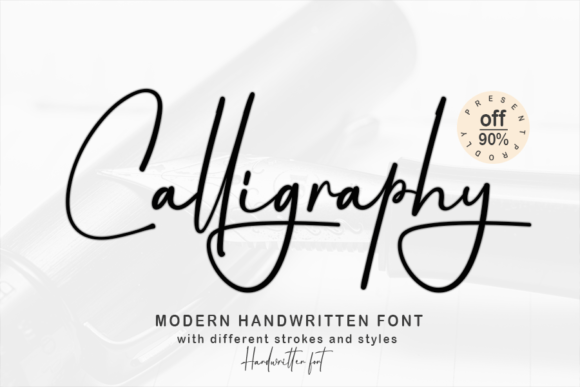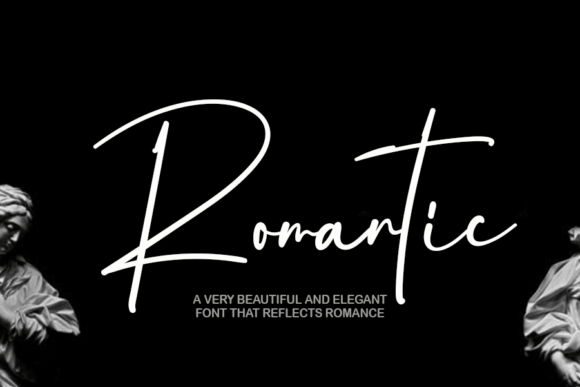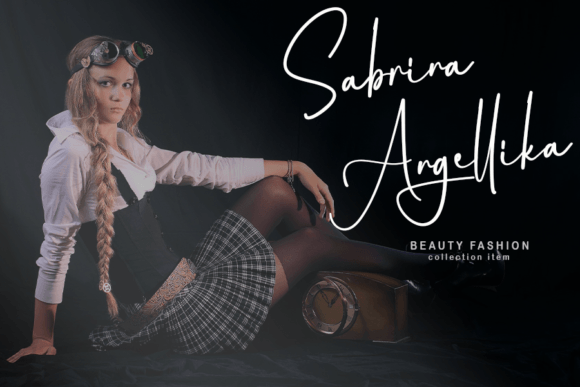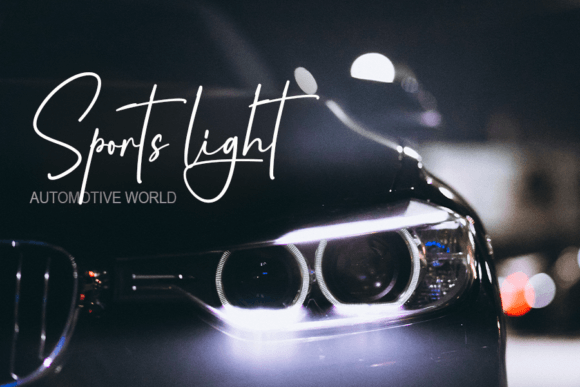
About the Calligraphy Font
Experience the unique personality of Calligraphy Font, a font designed for impact. Calligraphy is a stylish and elegant signature script font. It is perfect for product packaging, branding project, magazines, social media, weddings, or just used to express words above the background.
Its elegant, flowing forms make it ideal for headlines, short text blocks on invitations or certificates, and logos requiring a touch of sophistication. However, its highly decorative nature makes it unsuitable for body text or UI elements; readability suffers at smaller sizes. Avoid using it for large amounts of text.
Calligraphy pairs well with clean sans-serif fonts like Helvetica or Open Sans for a balanced contrast, providing readability where needed. Alternatively, a classic serif like Garamond or a more modern geometric sans-serif like Montserrat could also create a harmonious pairing, depending on the desired overall aesthetic.
The font exudes a refined, slightly formal elegance, best suited for brands aiming for a premium or luxury feel. Projects such as high-end product packaging, boutique branding, or artistic event invitations would benefit greatly from its distinctive character.
Calligraphy Font Usage Examples
Calligraphy Font Example